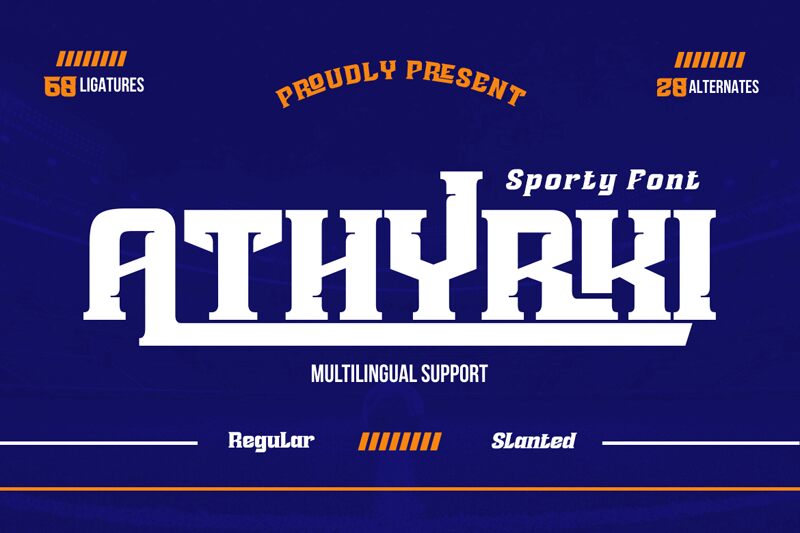
Athyrki Slant font by Twinletter exudes strong industrial vibes with its angular geometric shapes and modern aesthetic. This bold display font is characterized by an aggressive appeal, imbuing strength and presence into every character. Words become almost architectural with Athyrki as the line style & cuts give each character texture, beauty, and meaning.
The font's potential uses require a space where its artistry can be displayed, whether in a print poster or digital platform. Ideal uses include posters, magazine covers, advertisements, album covers, movie credits, microsites & social media graphics. Although it’s less legible as heading text at smaller sizes – Athyrki is worth the bold choice for special applications!